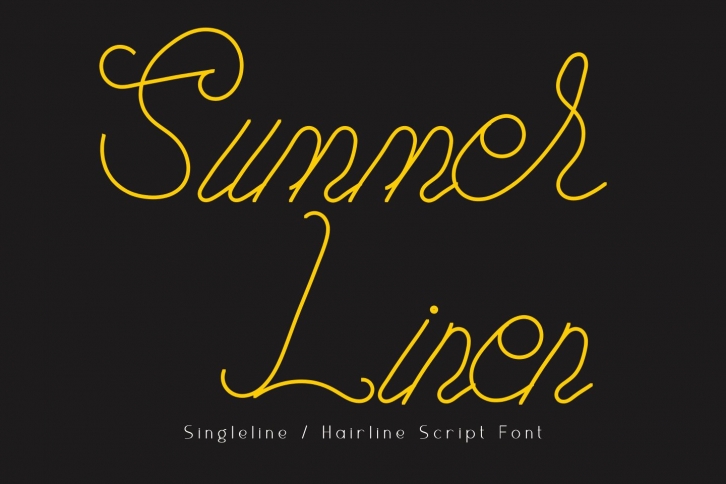
Summer Linen Single-line Font Download
Summer Linen Single-line is a beautiful font that was designed by SSIScraps. It's a great choice for designers and creatives who need such a font. It was released on June 18, 2020 and the file size is 7.88 MB. Summer Linen Single-line may give a more youthful, expressive and casual look to your project. It is a very beautiful, refined, elegant, and high-quality font.